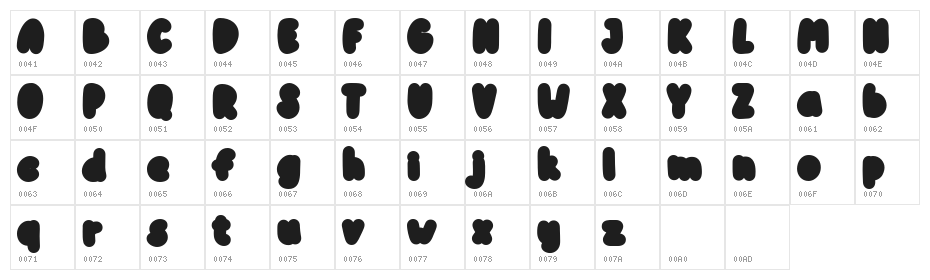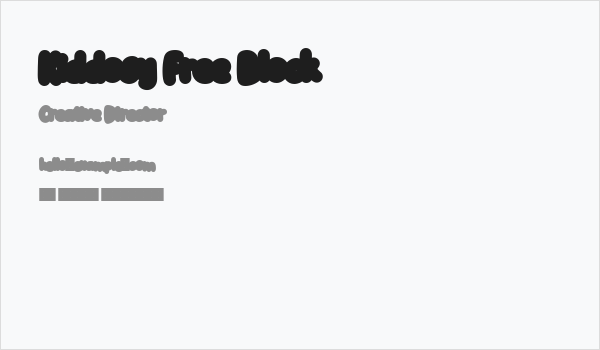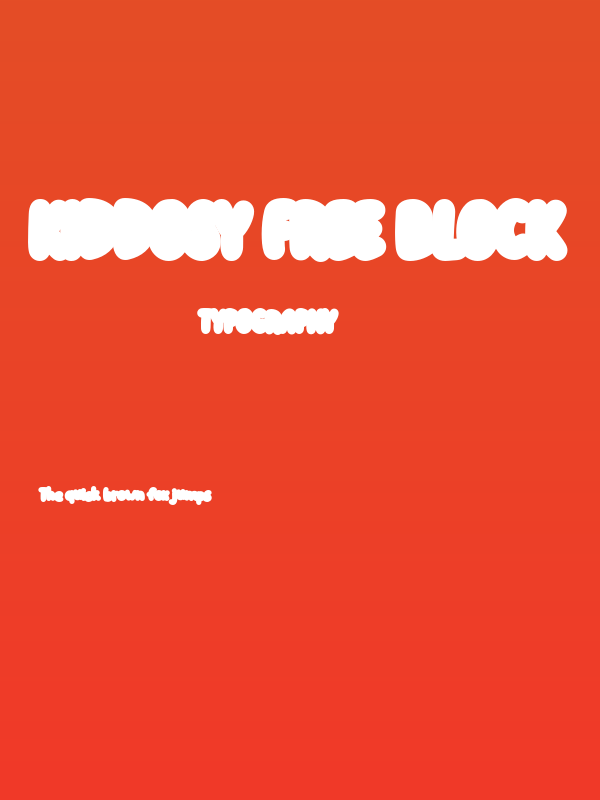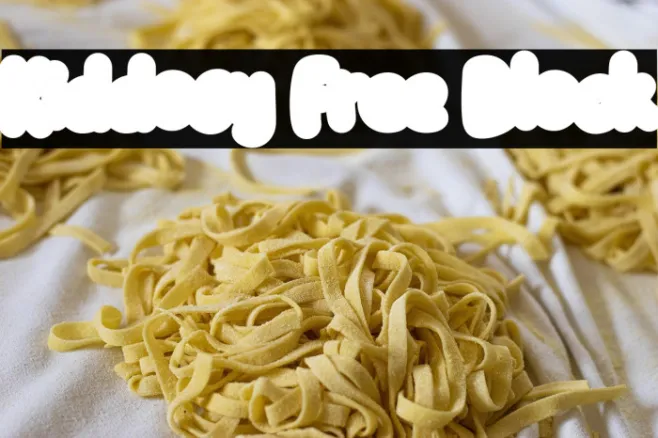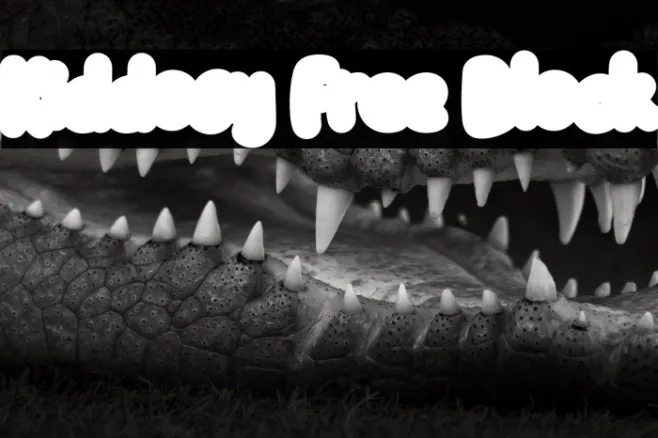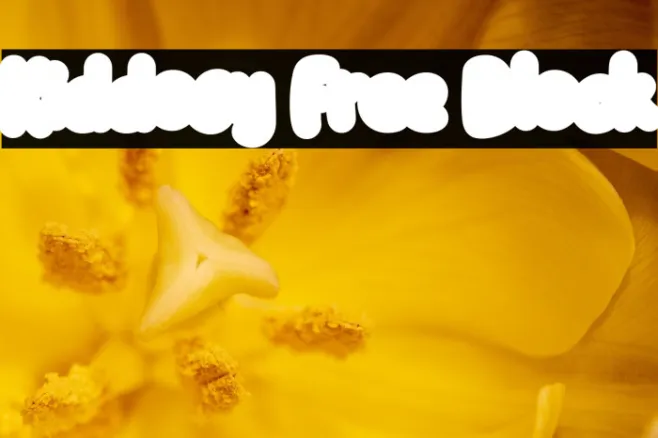
Kiddosy Free Block Font
Kiddosy Free Block Description
This playful and bold font features a unique, blocky design with rounded edges, creating a bubbly and friendly appearance. The characters are heavily weighted, giving a strong visual impact, while maintaining a sense of fun and whimsy. The uppercase and lowercase letters are consistent in style, with a uniform thickness throughout. The numbers and special characters follow the same design principles, ensuring a cohesive look across all elements. This font is ideal for projects that require a touch of creativity and playfulness, such as children's books, posters, and playful branding.
| Proposed Projects | Ideal for children's books, playful branding, posters, and creative projects. |